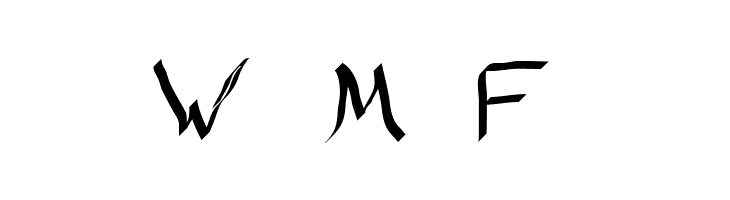
SF Tattle Tales Bold Italic Font
- Font: SF Tattle Tales Bold Italic
- Weight: Bold Italic
An artistic, calligraphic font with dynamic strokes and expressive style.